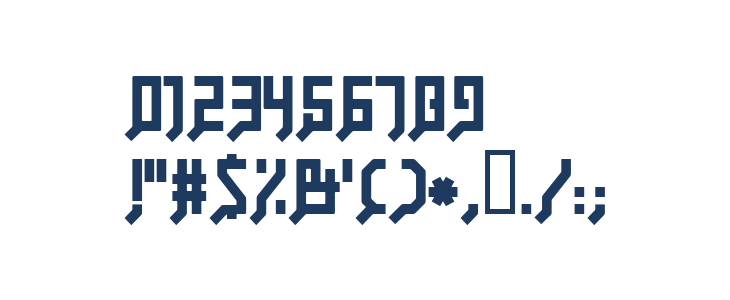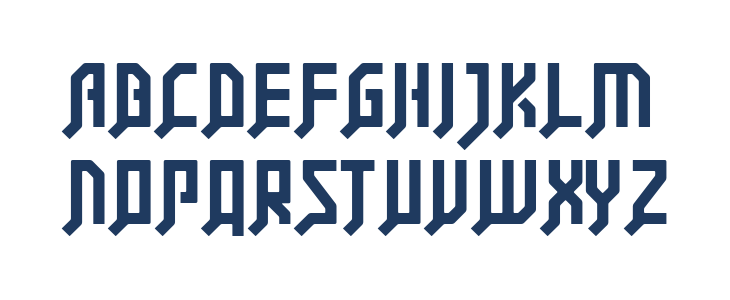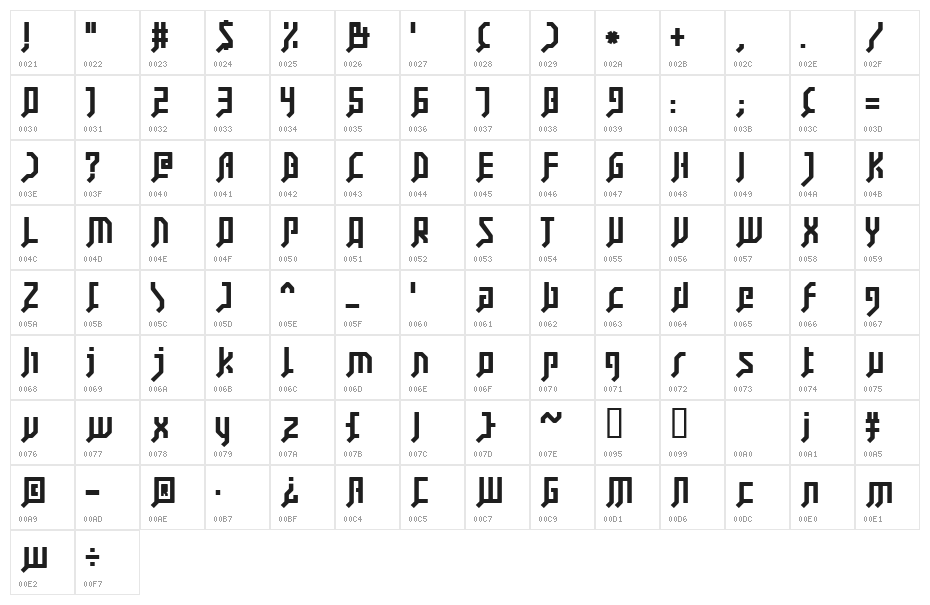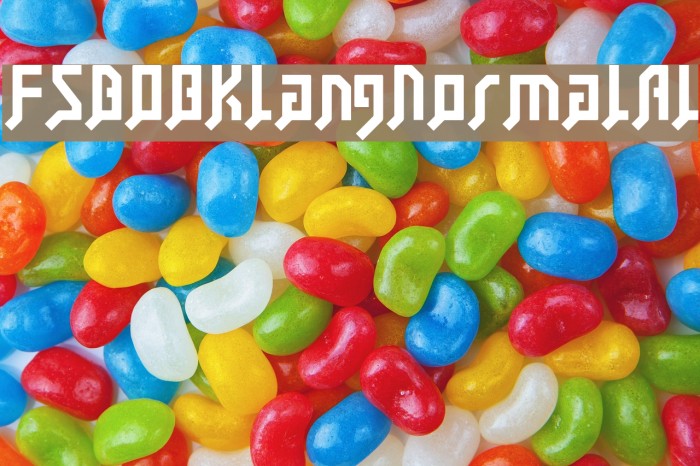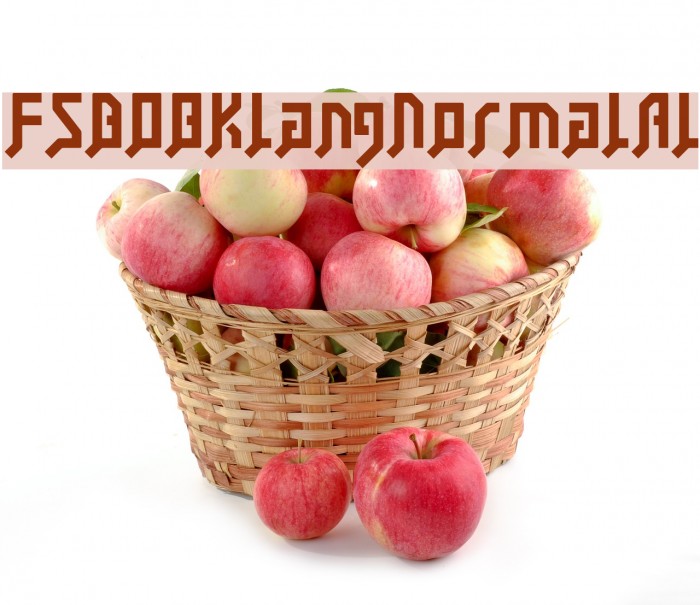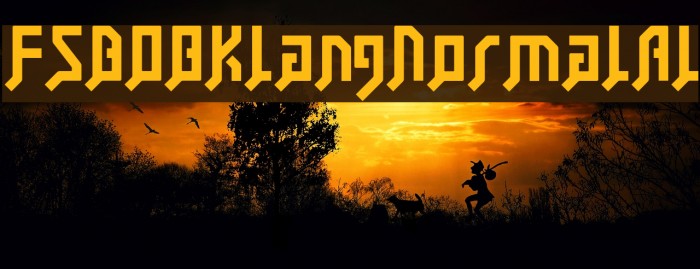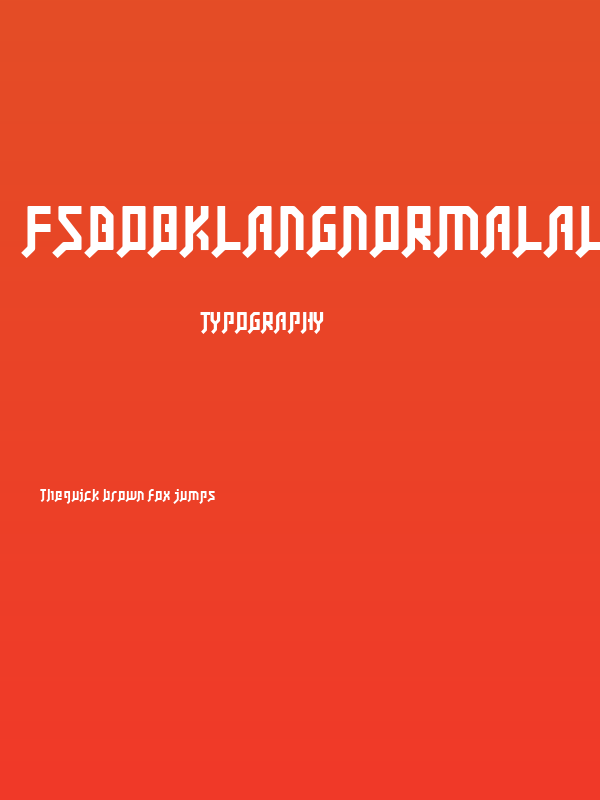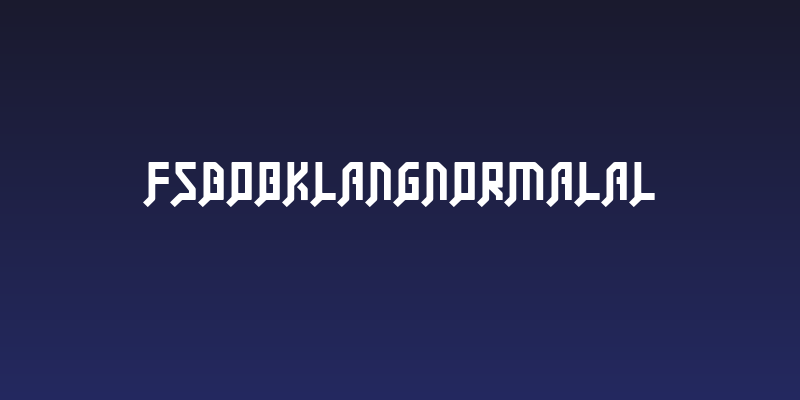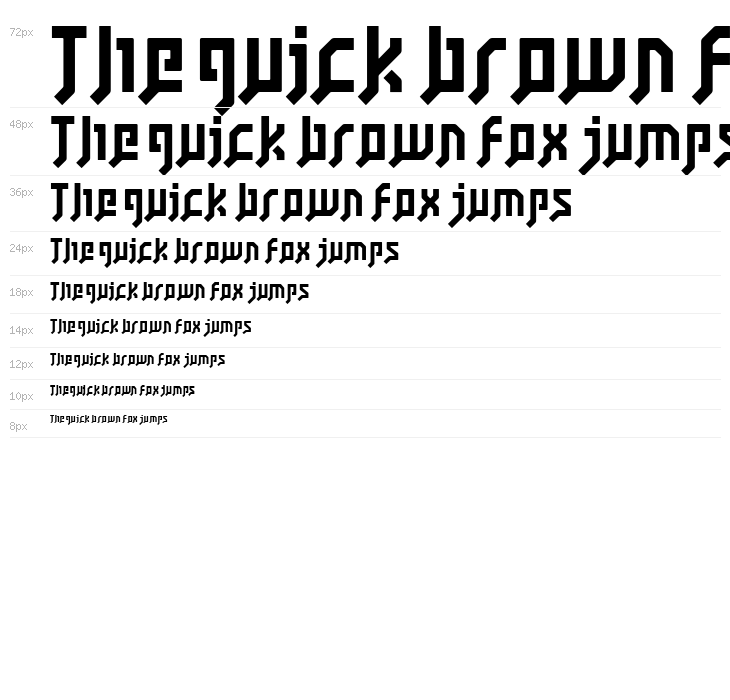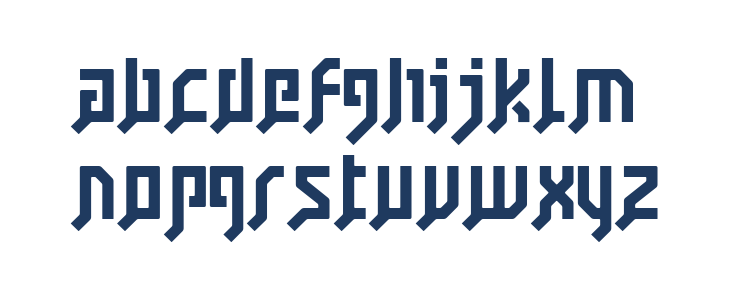
FSB08KlangNormalAl Font
FSB08KlangNormalAl Description
This font features a bold, geometric design with angular edges and a futuristic aesthetic. The characters are constructed with sharp, straight lines and consistent angles, giving it a distinctive, modern look. The uppercase and lowercase letters maintain a uniform height, contributing to a cohesive appearance. Numbers and special characters follow the same angular style, ensuring visual consistency across all elements. The font's unique structure makes it stand out, ideal for projects that require a strong, impactful typeface.
| Proposed Projects | Ideal for sci-fi themed designs, video game graphics, posters, and branding that requires a modern, edgy look. |